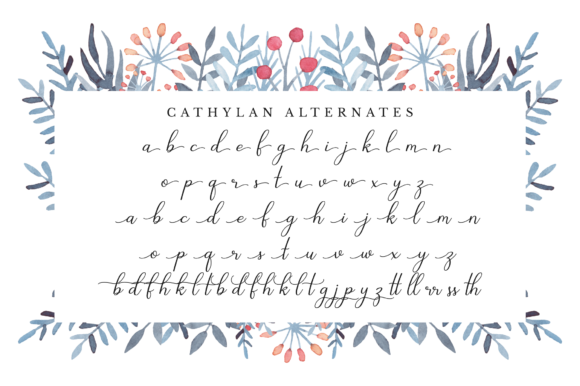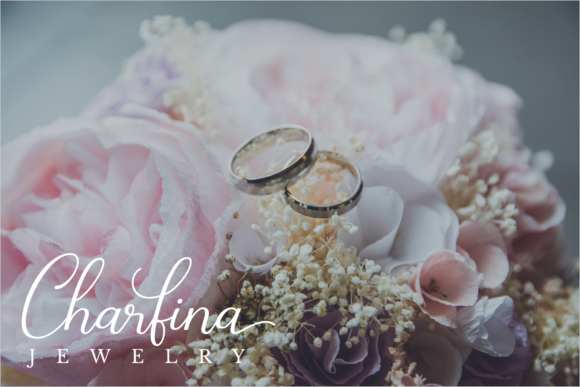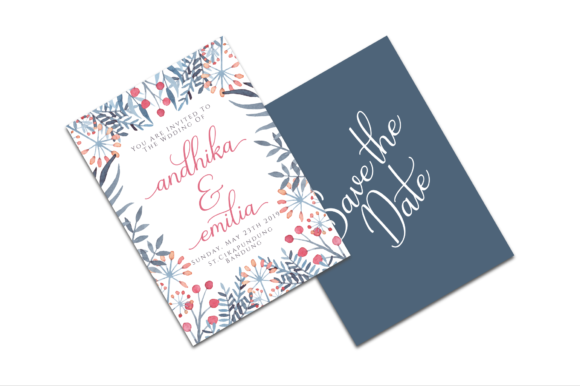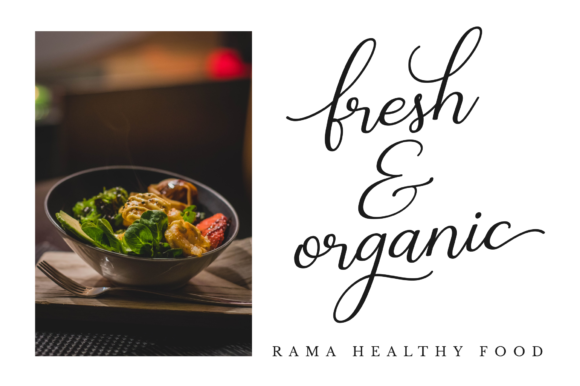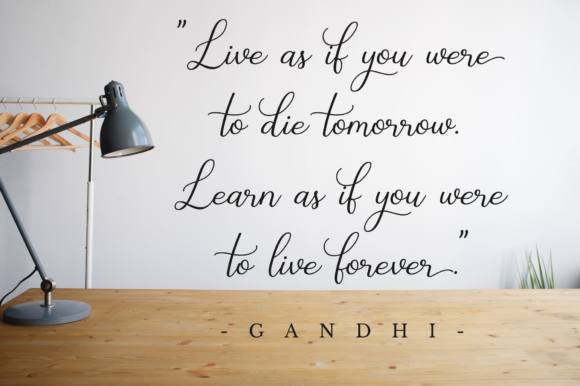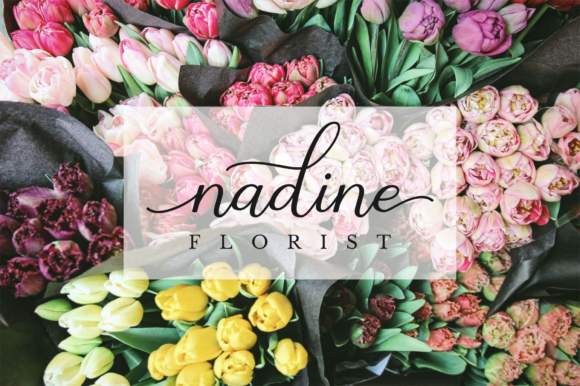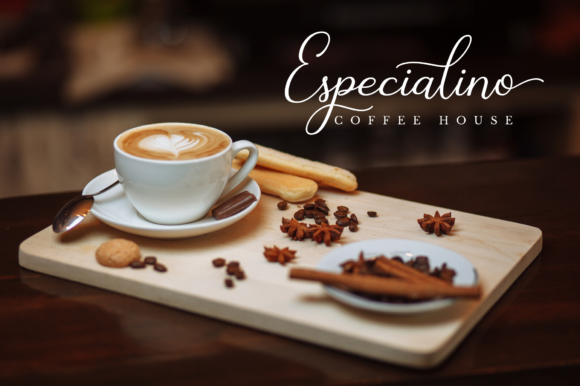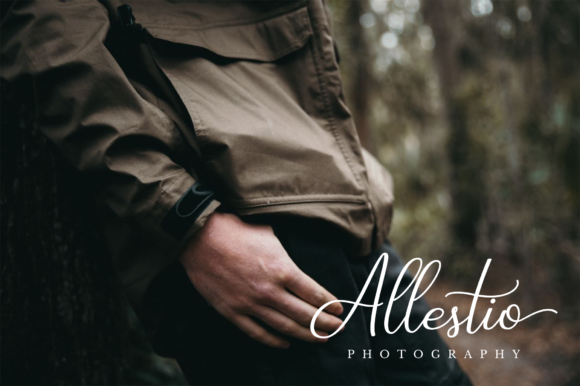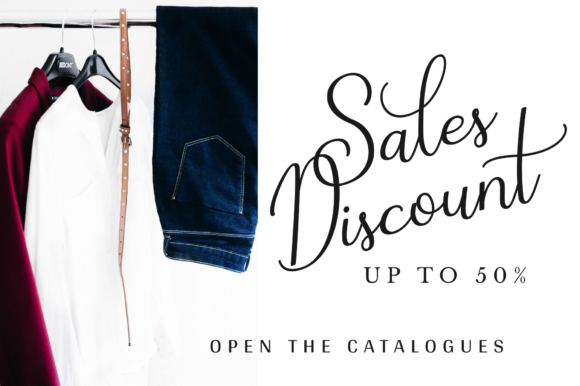
Cathylan Font
About Cathylan Font
Cathylan is a beautiful and elegant handwritten font with amazing swashes. Fall in love with its cool style, and add a lovely feel to any creative idea.